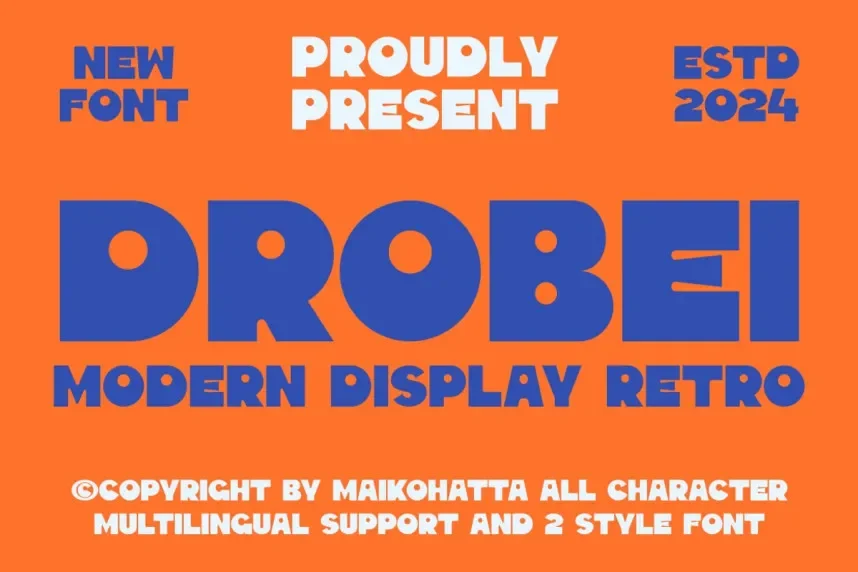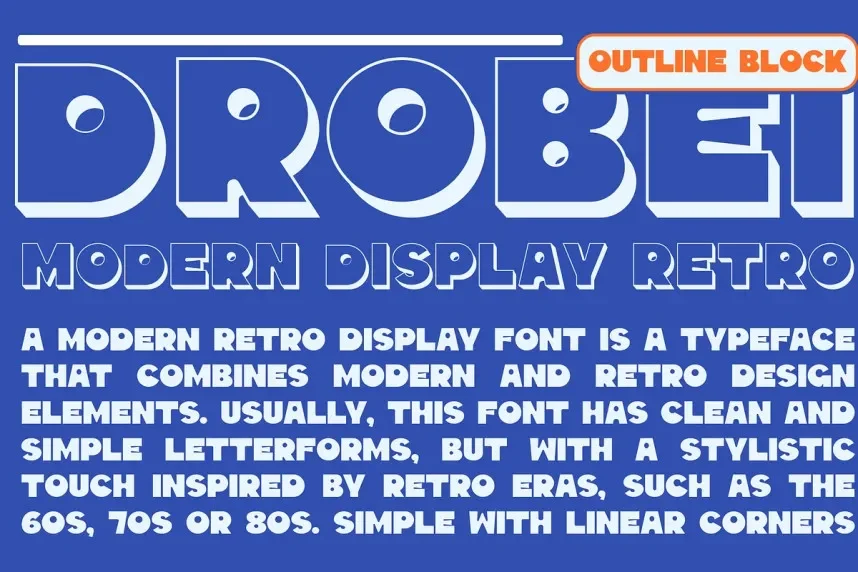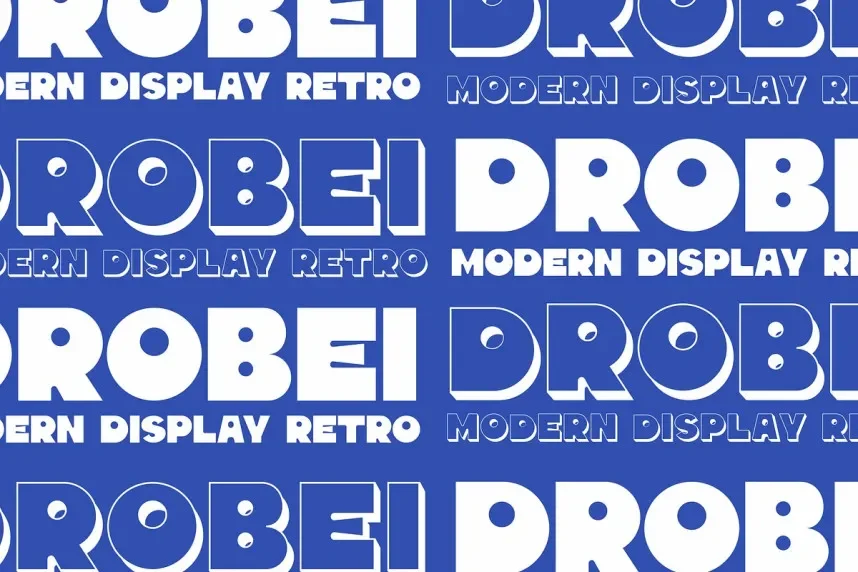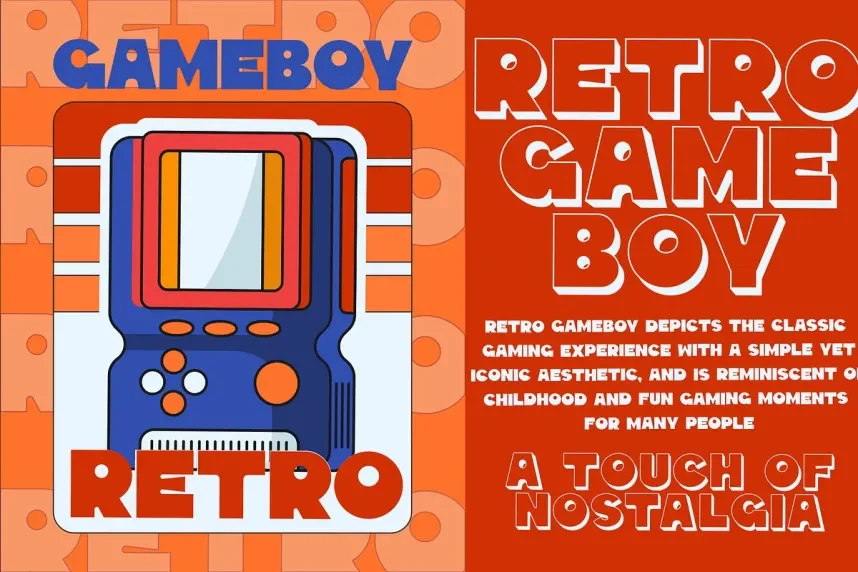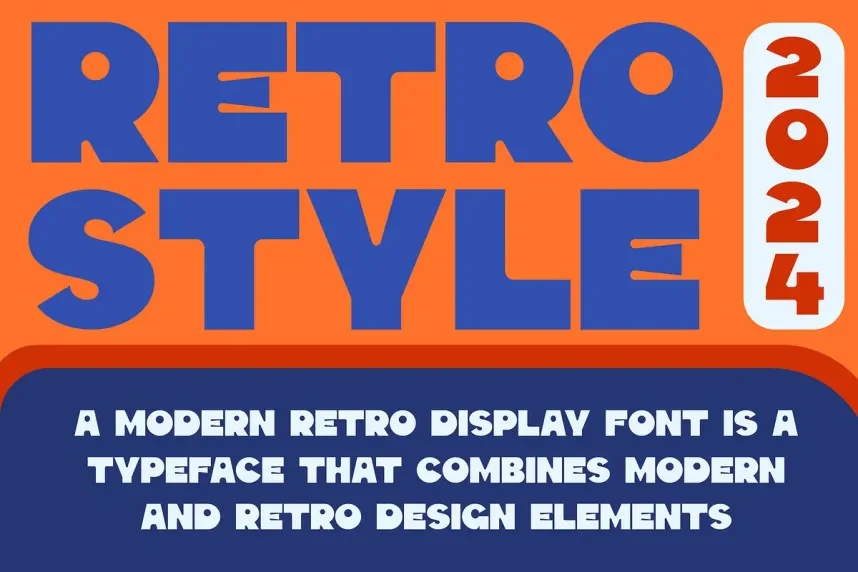
Drobei Font is a modern sans-serif typeface with a clean, geometric design. Its sharp lines and uniform strokes make it highly legible, making it perfect for tech branding, digital interfaces, and contemporary design projects. The simplicity of this font ensures clarity at any size.